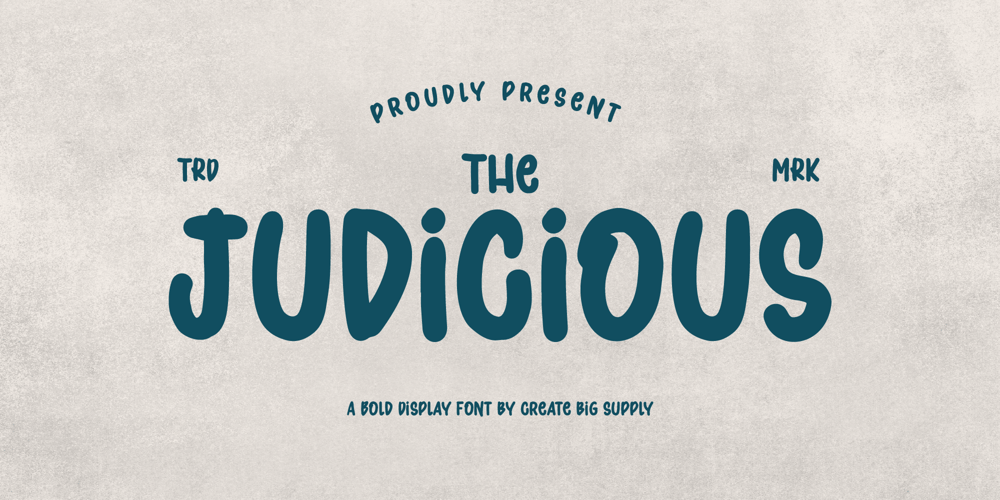
Judicious Font Family was designed by Irpan Maulana and published by Create Big Supply. Judicious contains 1 styles and family package options. Judicious is perfect for making a bold statement and grabbing attention with its strong and commanding style.With its uppercase and lowercase letterforms, Judicious offers versatility and creativity for your design projects. Whether you’re creating impactful headlines, striking logos, or eye-catching posters, this font will ensure your message is delivered with confidence.Featuring a comprehensive character set, Judicious includes numbers, punctuation marks, and supports multiple languages, making it suitable for various design applications. Additionally, the font is PUA encoded, allowing easy access to all glyphs and swashes, expanding your design possibilities.Let Judicious be the foundation of your next design project. Whether you’re working on branding, advertising, packaging, or any other creative endeavor, this bold display font will command attention and leave a lasting impression.